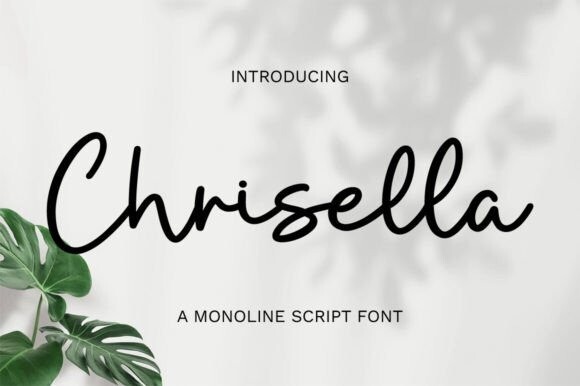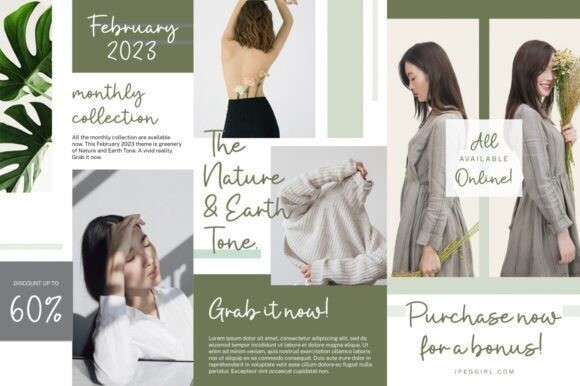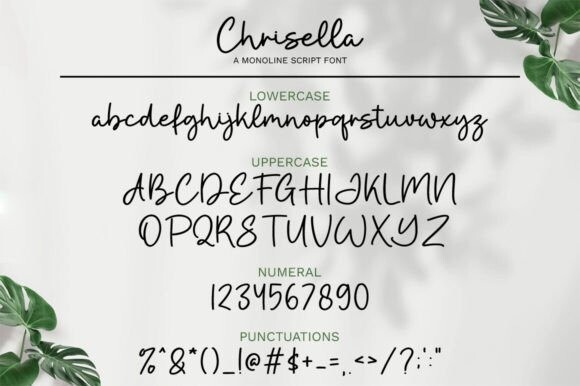
Chrisella Font
Chrisella Font is a delicate and refined script font that emanates sophistication and elegance. Fall in love with its incredibly versatile style and use it to create gorgeous wedding invitations, beautiful stationary art, eye-catching social media posts, and much more!